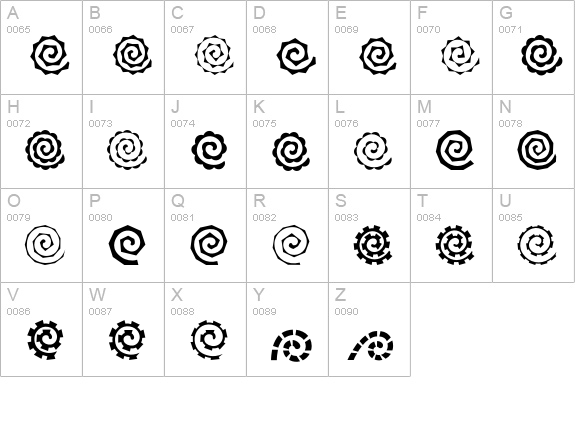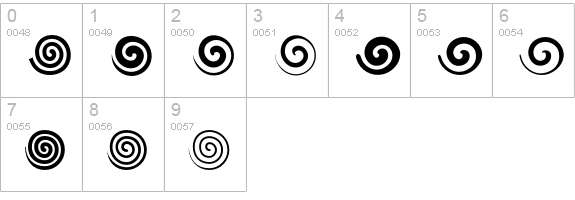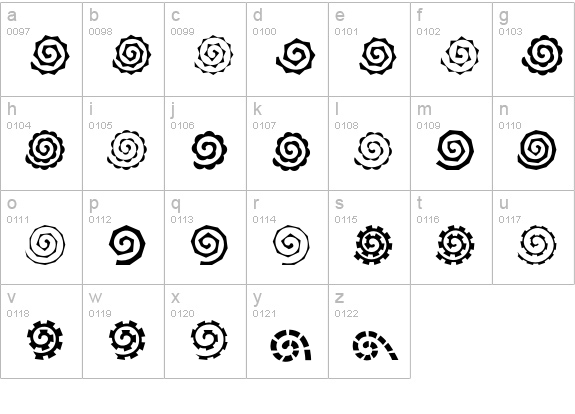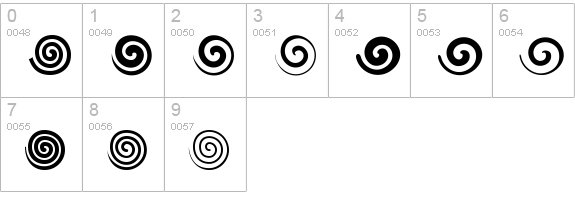
AltemusSpirals Font Details
Introducing AltemusSpirals font - a captivating and unique typeface that is sure to make a statement in your designs. With its intricate swirls and elegant curves, this font exudes a sense of creativity and sophistication. Whether you're designing a logo, poster, or branding materials, AltemusSpirals font will add a touch of whimsy and charm to your project. The best part? AltemusSpirals font is completely free to download at FontsMarket.com. That's right, you can access this stunning font at no cost, making it a perfect choice for designers on a budget or anyone looking to add a touch of flair to their work. Don't miss out on the opportunity to enhance your designs with the beauty and versatility of AltemusSpirals font - download it today and let your creativity soar.